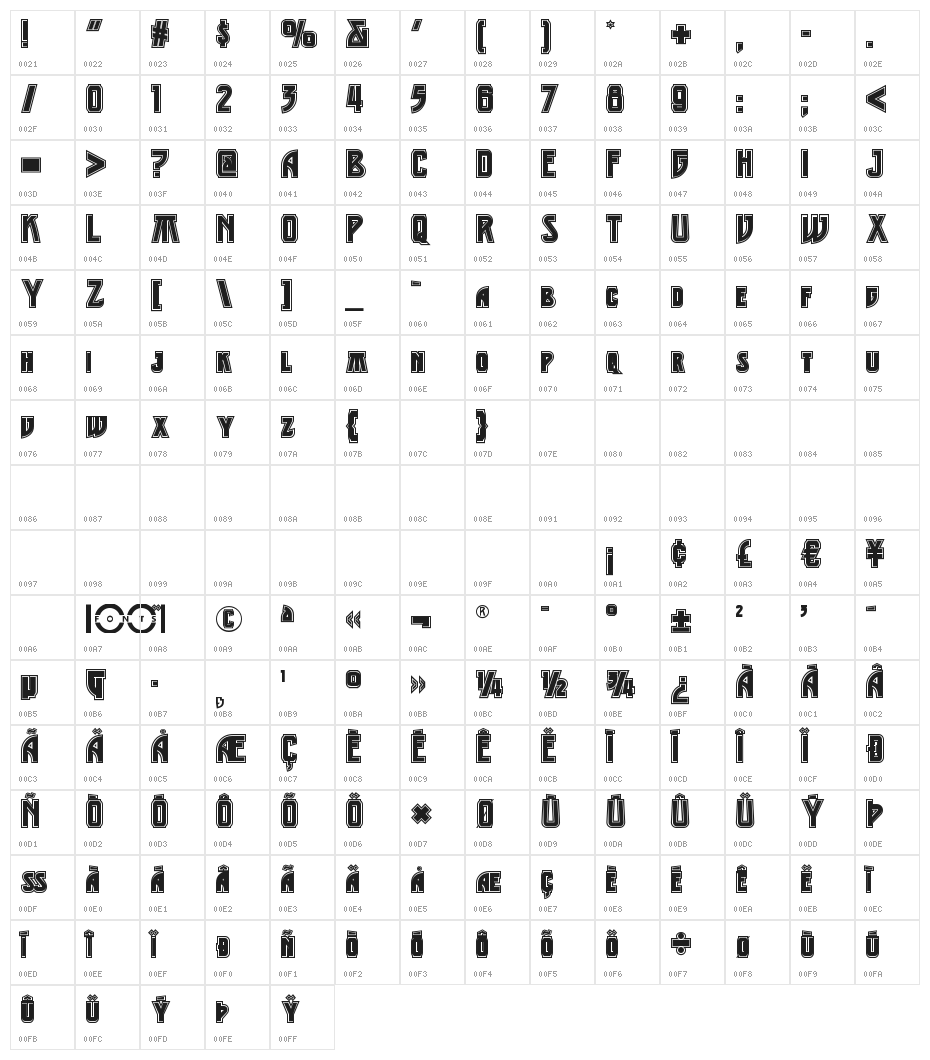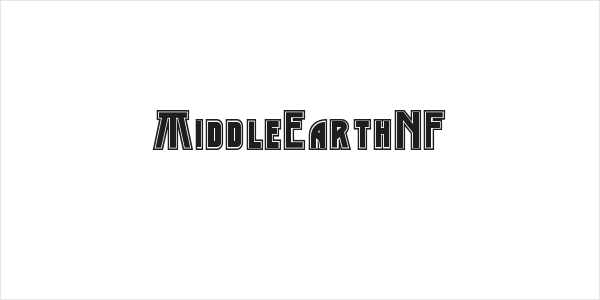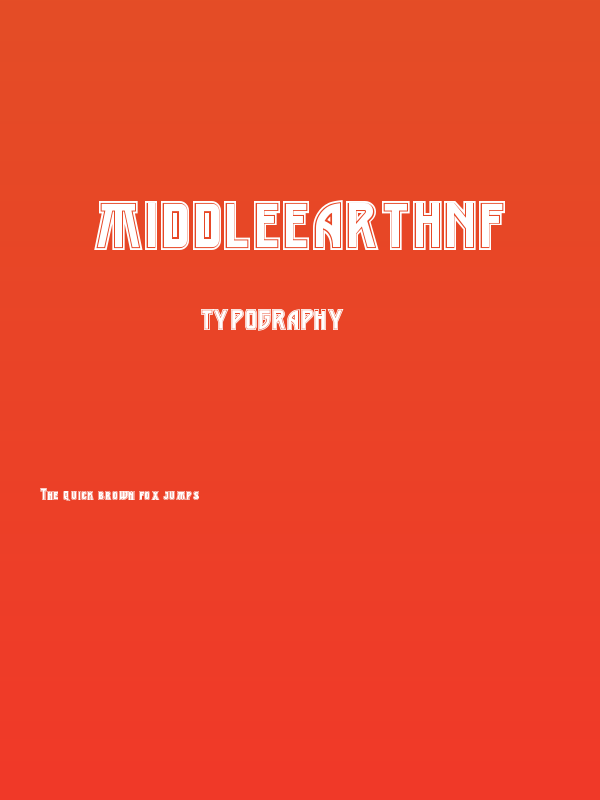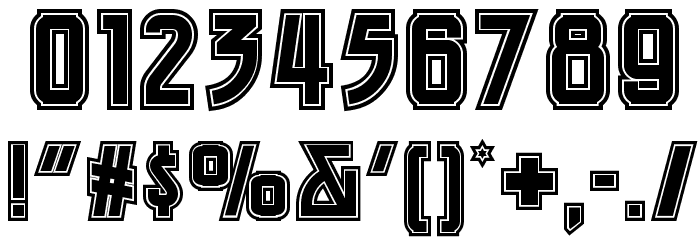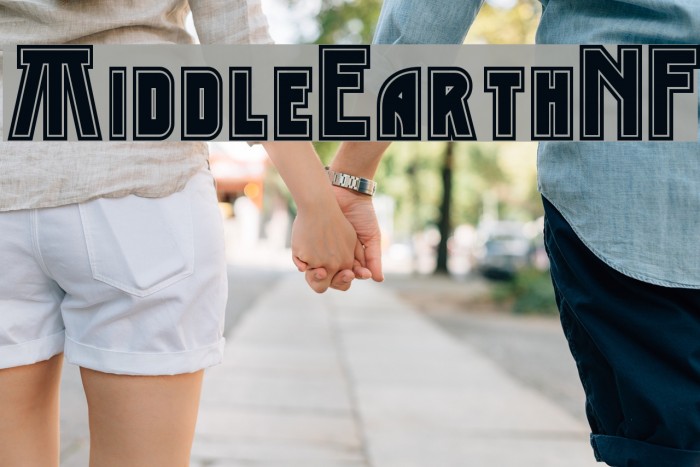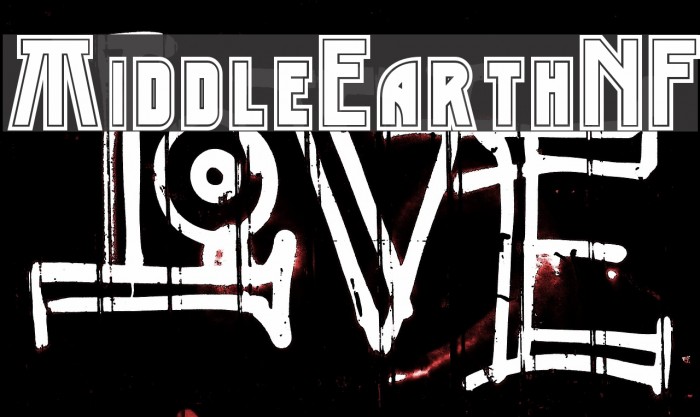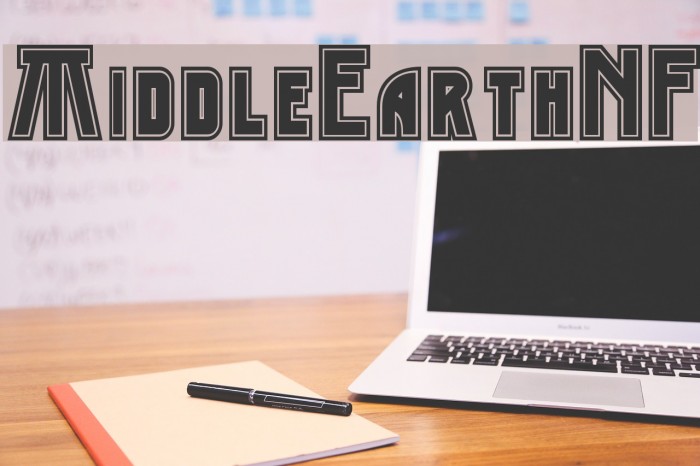
MiddleEarthNF Font
MiddleEarthNF Description
This font features a bold, decorative style with a strong, angular design that evokes a sense of fantasy and adventure. The characters are outlined, giving them a three-dimensional appearance, which adds depth and intrigue. The uppercase letters are particularly striking, with unique shapes that suggest a medieval or mythical theme. The numerals and special characters maintain this stylistic consistency, making the font versatile for thematic projects. The overall look is both bold and intricate, making it suitable for eye-catching designs.
| Proposed Projects | Ideal for fantasy-themed posters, book covers, video game titles, and themed event invitations. |